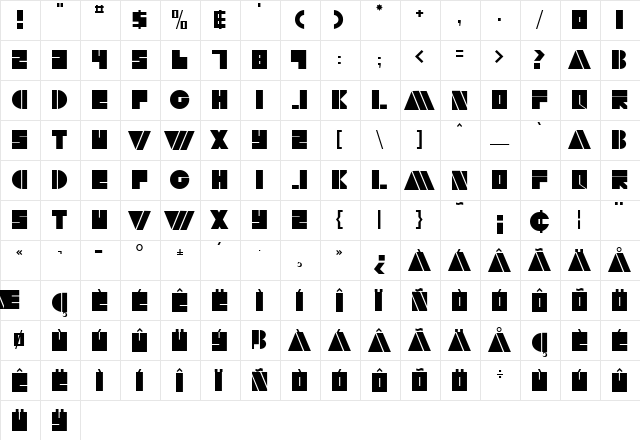
Butner Bold
Design Context for Butner Typeface
Butner is a composed and adaptable typeface that performs quietly and consistently across a wide range of design contexts. Its bold stroke weight gives it real presence on the page.